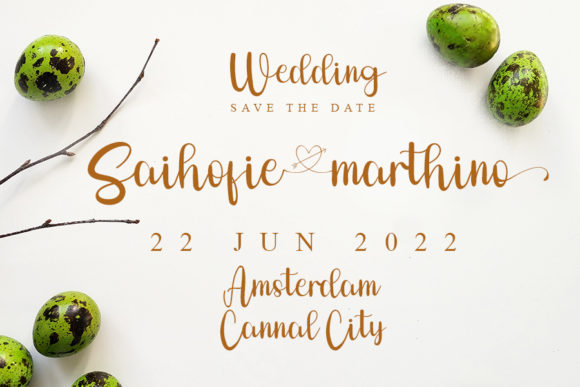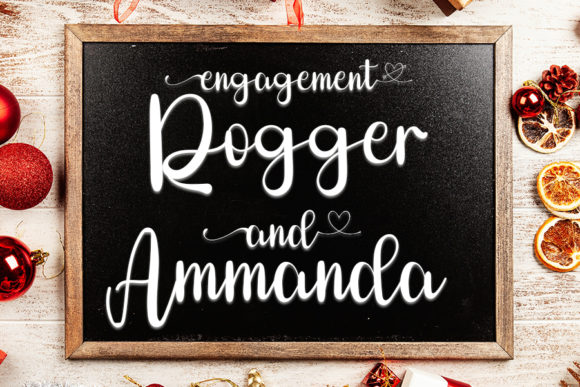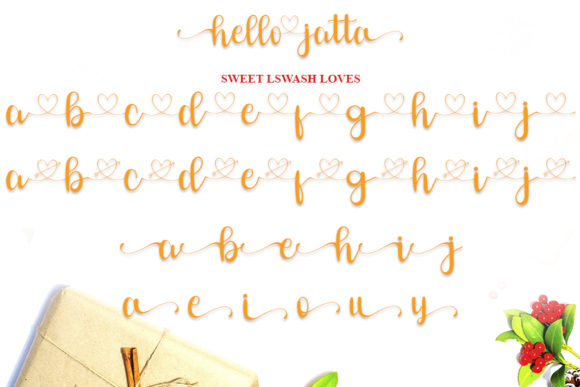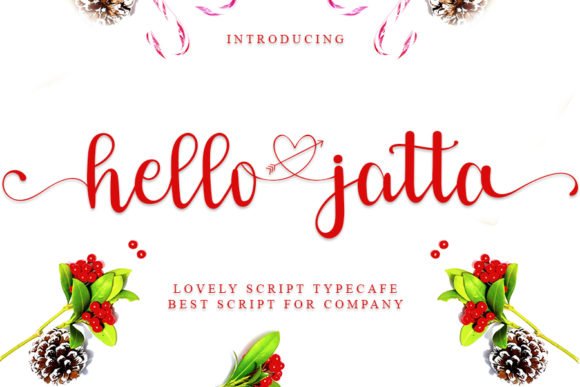
Introduction to Hello Jatta Font
Hello Jatta is a romantic script font, that features a very delicate and dreamy look.
Not too thin and not too thick, balanced and varied, this font was designed to enhance the beauty of your projects This font is PUA encoded which means you can access all of the glyphs and swashes with ease.
Key Features of Hello Jatta Font